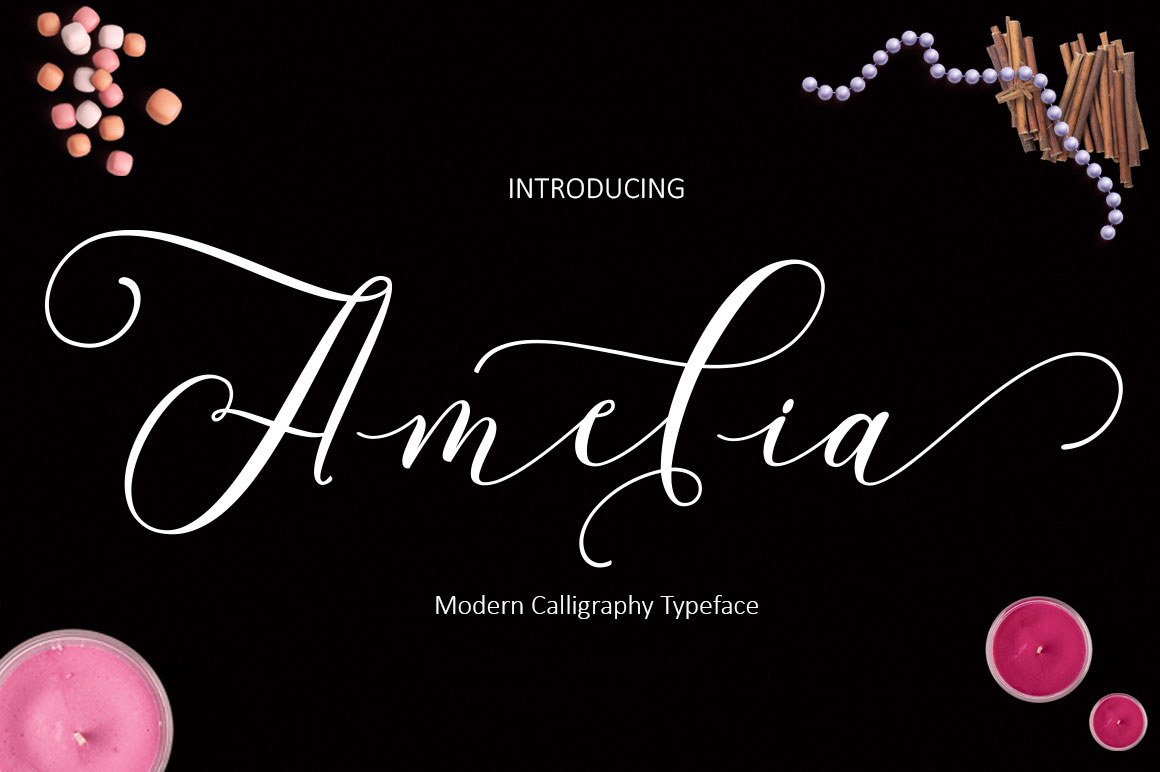
The Quest for the Perfect Script Font: Discovering Amelia Script
I’ll never forget the time I was working on a project for a client who wanted a custom signature design. I had spent hours browsing through font libraries, but nothing seemed quite right. That was until I stumbled upon Amelia Script, a beautiful handlettered calligraphy font that stole my heart. In this article, I’ll share my experience with Amelia Script, its features, and how to make the most of it in your designs.
A First Impression: What I Love About Amelia Script
Amelia Script is a stunning font that boasts a soft and smooth character flow, making it perfect for signature designs, branding, and creative projects. Here are some things I love about it:
• ✨ Beautiful wave and natural flow: Amelia Script has a unique, flowing style that gives it a personal and human touch.
• ✅ Soft and smooth character flow: The font’s smooth curves and lines make it easy to read and visually appealing.
• 💫 Highly versatile: Amelia Script can be used for a wide range of projects, from wedding invitations to business branding.
While Amelia Script is an excellent font, it’s not perfect. Here are a few quirks to keep in mind:
• 🤔 Limited use in very small sizes: Like many script fonts, Amelia Script can become tricky to read in very small sizes.
• ⚠️ Some letters may require manual kerning: Depending on your design software, you might need to adjust the kerning between certain letters for optimal results.
The Story Behind Amelia Script
Amelia Script was designed with the intention of creating a beautiful, handlettered calligraphy font that captures the essence of natural flow and elegance. The designer aimed to create a font that would be perfect for creative projects, branding, and personal expression.
What makes Amelia Script unique? Amelia Script’s unique wave and natural flow make it stand out from other script fonts.
Is Amelia Script suitable for body text? While Amelia Script is beautiful, it’s best suited for headings and titles due to its script nature.